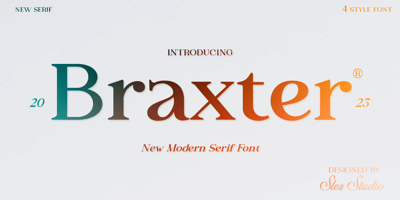
Braxter
Braxter font
Braxter Font Family was designed by Muhammad Rayyan and published by Slex Studio. Braxter contains 4 styles and family package options. Braxret is a classic and elegant retro serif with a modern twist. With its decent readability, Braxter is perfect for display and body text.Inspired by all the retro aesthetics that are making a comeback, Braxter is perfect for creating nostalgic but clean and elegant designs such as logos, packaging, editorials, and more.